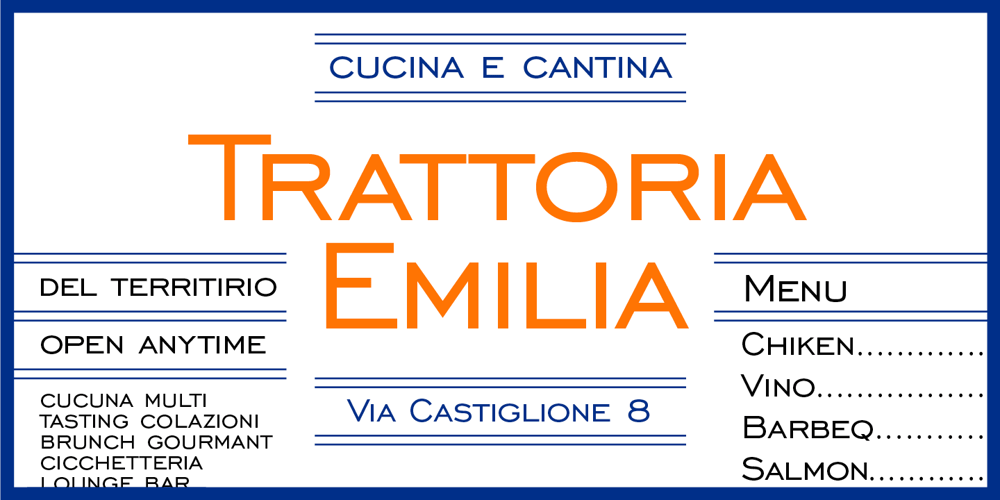
Engravers Gothic Font Family was designed by Isabella Chaeva and published by ParaType. Engravers Gothic contains 2 styles and family package options. Engravers Gothic, originally designed at Bitstream, is a classic, extended Grotesque typeface ideal for advertising and display typography. Its robust and versatile design makes it perfect for creating impactful headlines and eye-catching promotional materials.In 2003, Isabella Chaeva developed the Cyrillic version of Engravers Gothic for Paratype, adding a Bold style that enhances its presence and functionality across various design projects.Engravers Gothic main characteristics:- 2 styles in total- 589 glyphs in each style- 12 OpenType features- Extended Latin and Cyrillic supportAnd if you need font files in different formats or want to try this font, just drop us a line at fonts@paratype.net, and we’ll work something out.